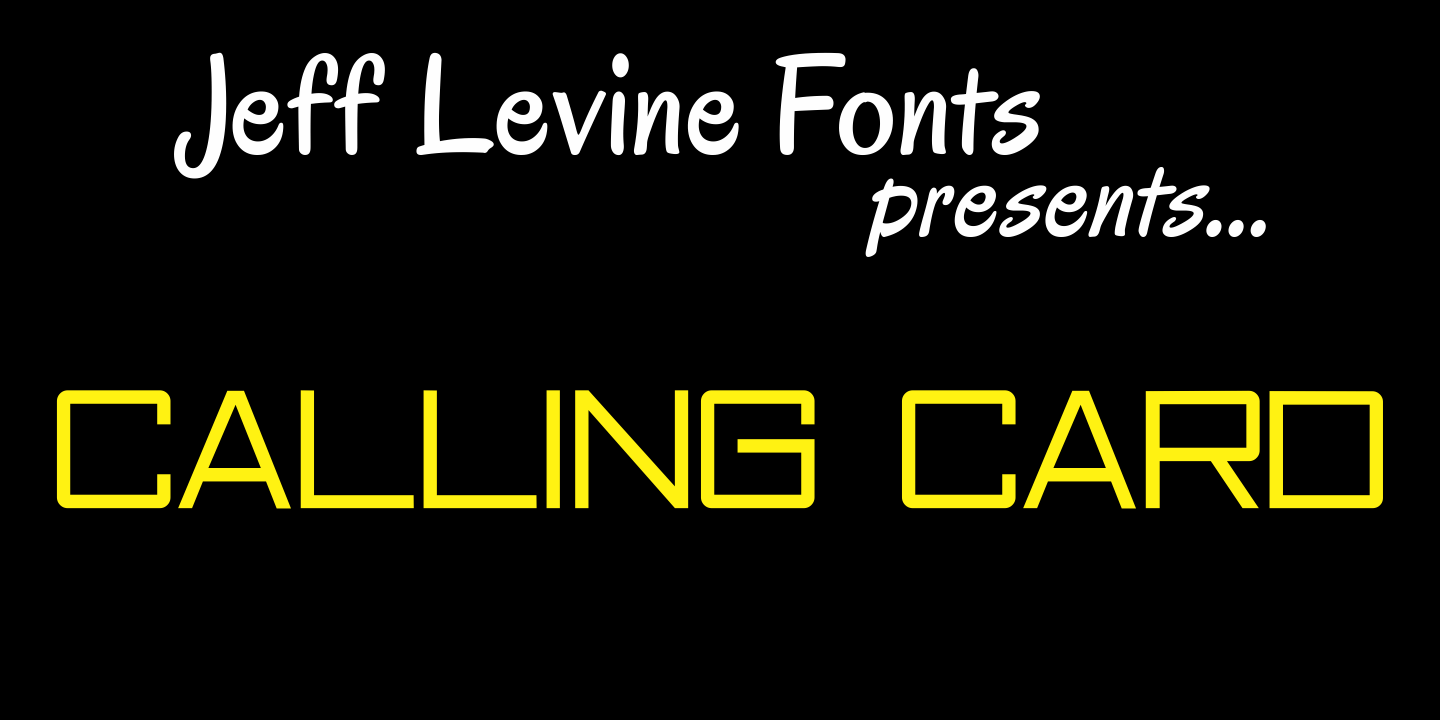
Calling Card
In today's day and age, the term 'calling card” refers to a prepaid means of making long distance phone calls. In a more gentler time, the calling card (similar to a business card) was what a gentleman presented to a housekeeper or butler when visiting (calling) on a friend or business contact.
Calling Card JNL Regular by Jeff Levine Fonts